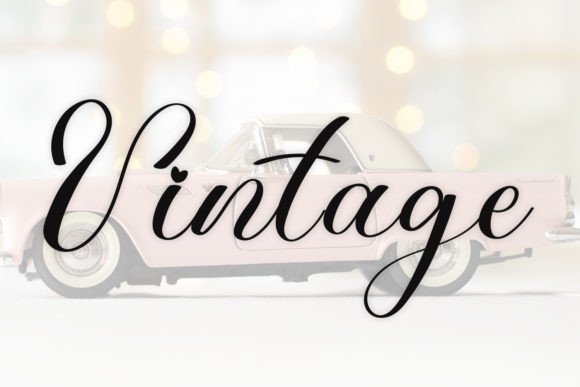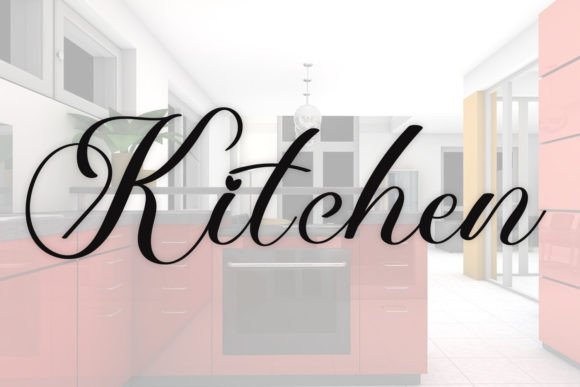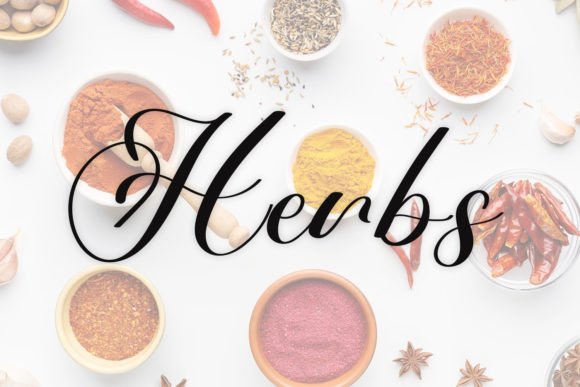
The Sweetest Addition to Your Design Palette
As you sit at your desk, surrounded by sketches and half-finished projects, you suddenly feel the urge to create something truly special. A wedding invitation, a birthday card, or perhaps a logo for a new business venture – whatever it is, you want it to be perfect. And that’s where the magic of typography comes in. You start browsing through font options, searching for the perfect combination of elegance and whimsy, until you stumble upon it – Cake Font.
This beautiful, flowing handwritten font is the perfect addition to any designer’s toolkit. With its incredibly distinct and timeless style, Cake Font is sure to elevate your projects to the next level. Whether you’re a seasoned pro or just starting out, this font is a valuable asset that will help you create spectacular designs that truly stand out.
So why settle for a generic font when you can have a piece of cake – or rather, Cake Font? Fall in love with its sweet, elegant touch and make it a staple in your design repertoire.
Cake Font Key Features
- Unique Characteristics: Cake Font features a unique, hand-drawn design with intricate details and textures, making it perfect for adding a personal touch to designs.
- Legibility: The font is designed for optimal legibility, with clear letterforms and easy-to-read text, making it suitable for body text and headings.
- Style Options: Cake Font includes multiple style options, including bold, italic, and regular, allowing designers to mix and match styles for creative expression.
Cake Font Review
Cake Font is a beautiful and playful font that’s perfect for adding a touch of whimsy to your designs. I was immediately drawn to its rounded edges and ornate details ✨. The font is highly customizable, making it easy to adjust the color, size, and style to fit your project’s needs.
The font is available in a range of weights, from light to bold, which is great for creating visual hierarchy in your designs. It also has a wide range of languages supported, making it a great option for international projects ✨. Additionally, the font is highly legible, even at smaller sizes, which is a must-have for any font.
- Rounded edges and ornate details add a touch of whimsy to designs ✨
- Highly customizable, with options for color, size, and style
- Available in a range of weights, from light to bold
- Wide range of languages supported
- Highly legible, even at smaller sizes
- May be too playful for formal or professional designs ⚠️
- Not suitable for text-heavy designs, as it can be overwhelming ⚠️
Overall, I’m a big fan of Cake Font. It’s a great option for designers who want to add a touch of personality to their projects. Just be mindful of its limitations, and use it sparingly in text-heavy designs.
Cake Font: A Practical Application Guide
Using Cake Font in PowerPoint/Word
Open PowerPoint or Word and select the text tool. Choose the Cake Font from the font library and adjust the size and color to your liking. You can also use the font in combination with other design elements to create a cohesive look.
To get the most out of Cake Font, use it in combination with bold or italic text to add emphasis. You can also use it in conjunction with graphics and images to create a visually appealing design.
Cake Font is commonly used in social media graphics, blog posts, and marketing materials to add a playful and whimsical touch. It’s also used in wedding invitations, party decorations, and other celebratory designs.
Best Practices
Use Cake Font sparingly to avoid overwhelming the design. Balance the font with other design elements to create a cohesive look. Experiment with different font sizes and colors to find the perfect combination for your design.
Q: Can I customize Cake Font to fit my design needs?
Yes, Cake Font is a highly customizable font. You can use design software to adjust the font size, color, and spacing to fit your design needs. Additionally, you can use font editing software to modify the font’s appearance, such as changing the stroke width or adding custom ornaments.